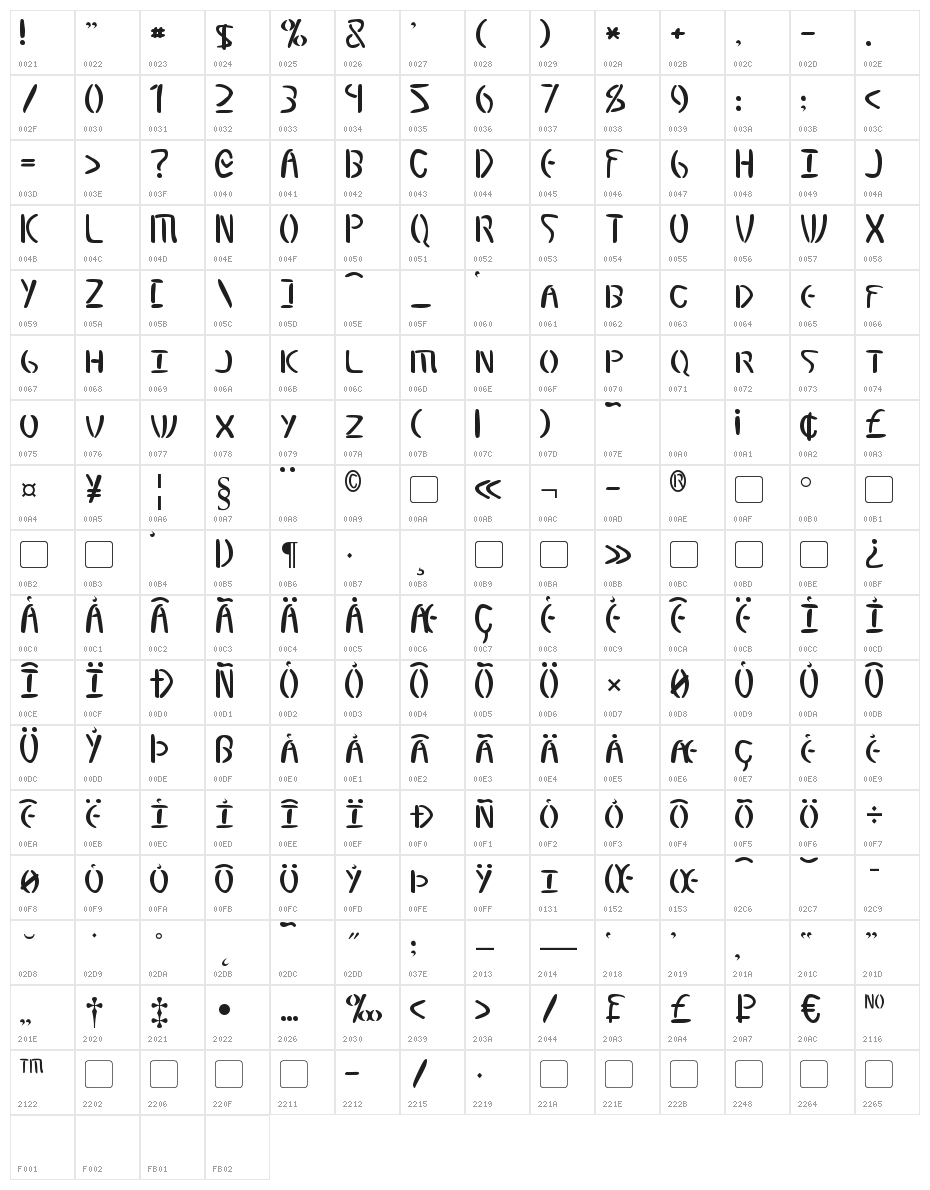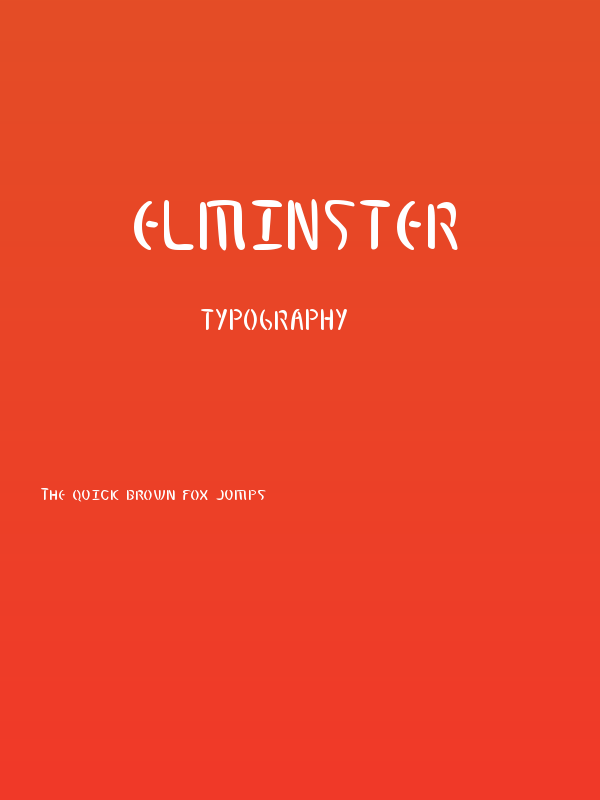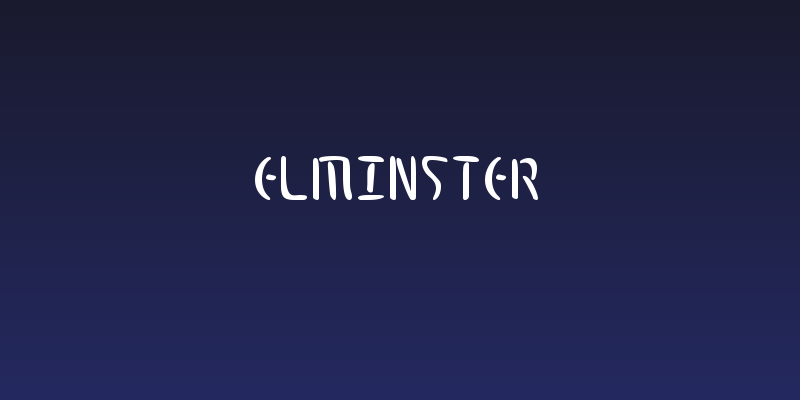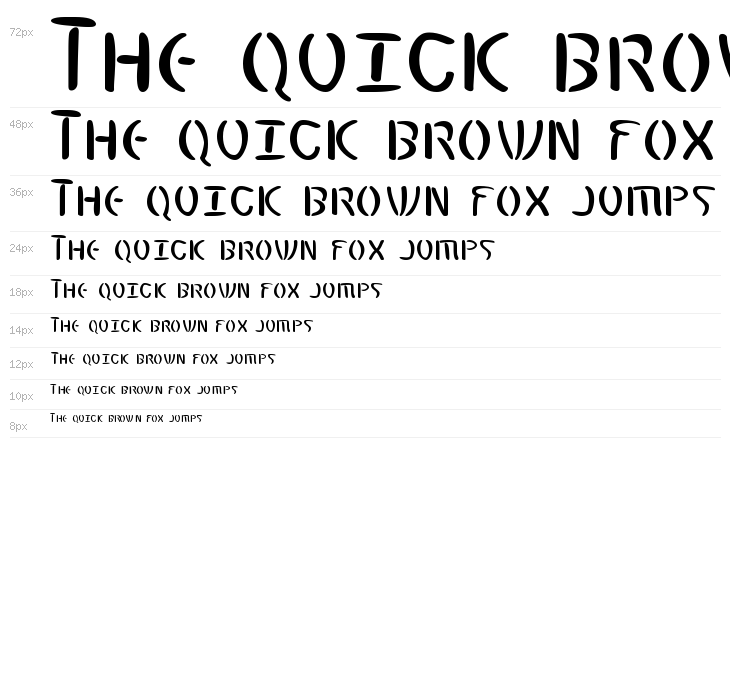
Elminster Font
Elminster Description
This font features a unique and artistic design with a playful and bold appearance. The characters are crafted with a combination of thick and thin strokes, creating a dynamic and eye-catching look. The uppercase letters have a distinctive style with rounded edges and a slight slant, giving them a modern and creative feel. The lowercase letters maintain consistency with the uppercase, offering a cohesive and harmonious appearance. The numerals and special characters are designed to match the overall aesthetic, ensuring versatility across different uses. The font's boldness and artistic flair make it suitable for projects that require a strong visual impact.